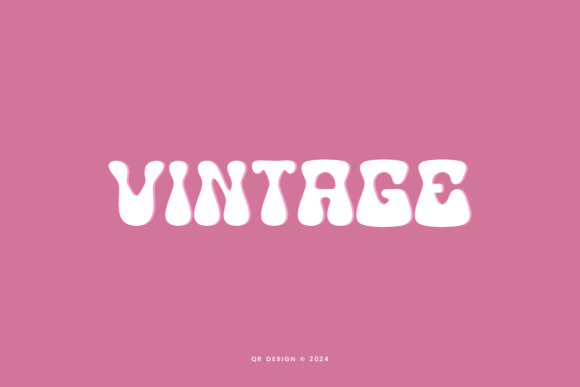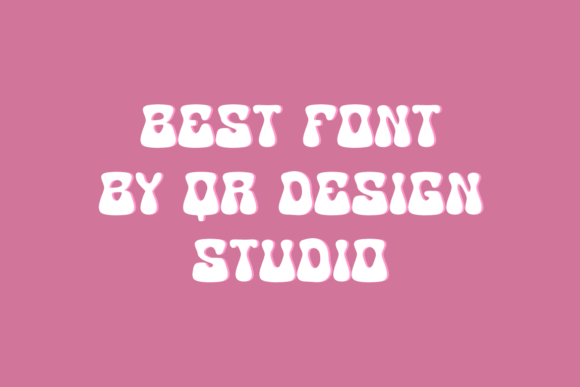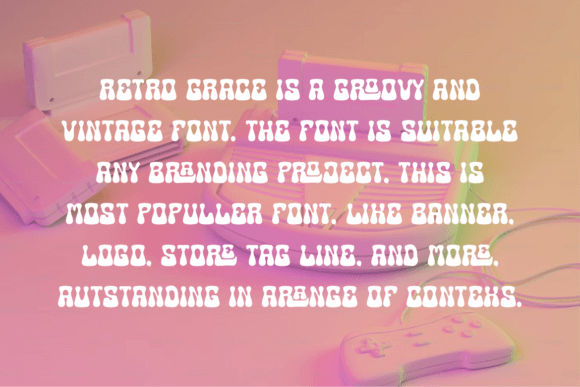
Introduction to Retro Grace Font
Retro Grace Font is a groovy and authentic display font.
The font is suitable for any branding project like logo, sport, and many more Outstanding in a wide range of contexts.
Key Features of Retro Grace Font
Why Choose Retro Grace Font?
Retro Grace Font offers exceptional quality and versatility, making it a valuable addition to your design toolkit. Whether you’re creating for personal projects or commercial use, Retro Grace Font delivers professional results.